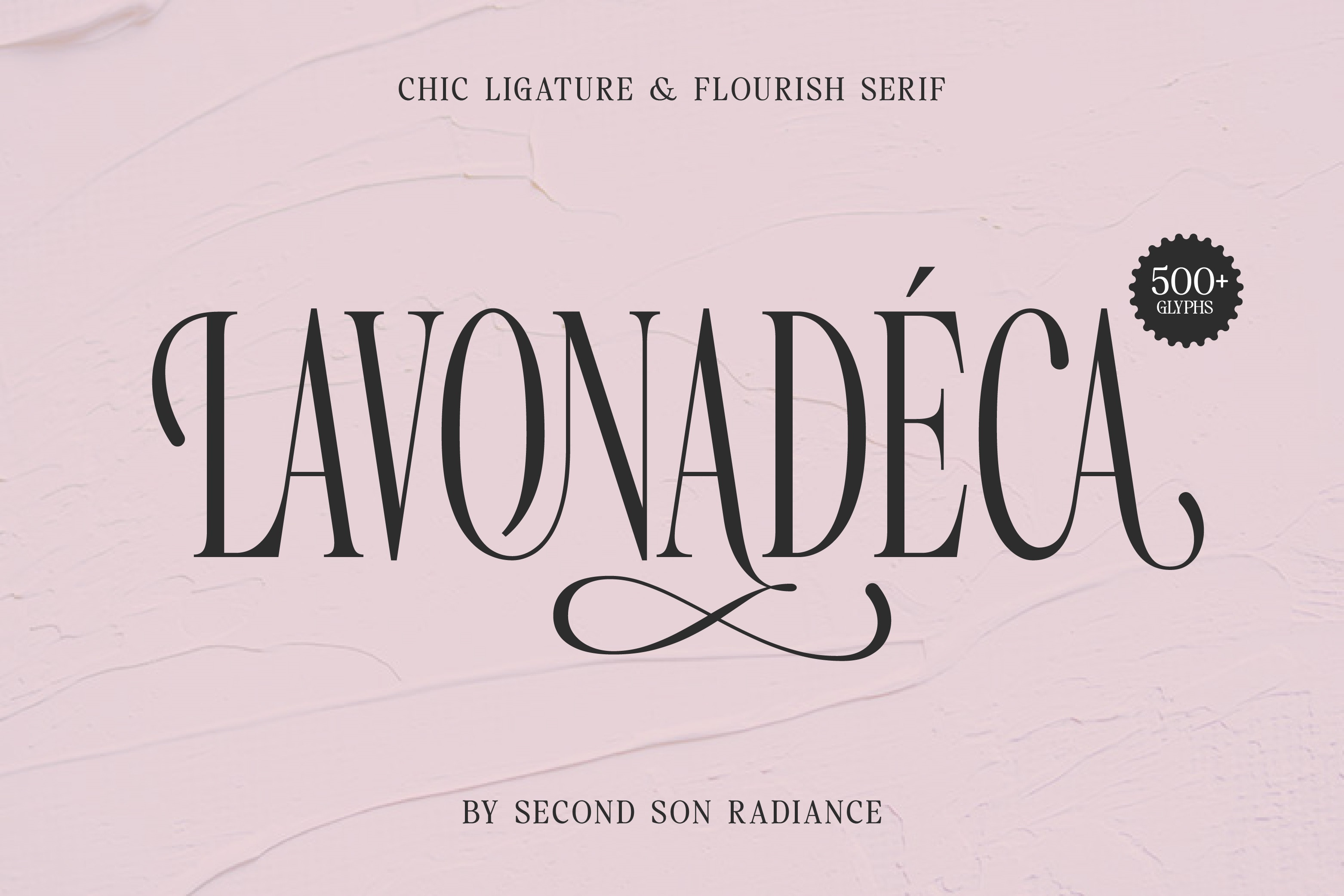
SS Lavonadeca - Flourish Serif Font
Lavonadeca is a sophisticated, charming serif font with a fashionable touch, comes with a lot of ligatures and alternate for you to mix and match. Specially designed for luxury, elegant, feminine projects, this font is perfectly suitable for creating modern, chic designs.